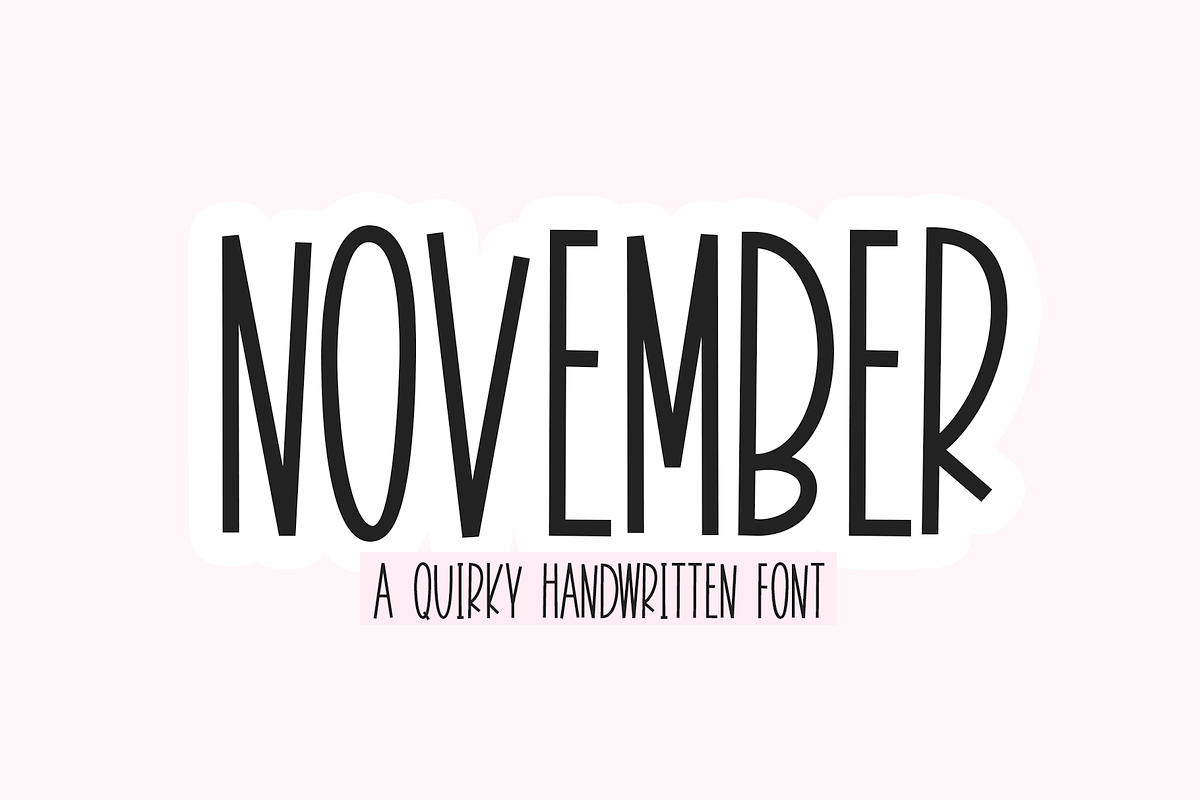
November | Fun Handwritten Font Free Download
Playful, casual, and full of warmth, November | Fun Handwritten Font Free Download is a cheerful typeface that captures the feel of hand-drawn lettering with a friendly twist. Perfect for greeting cards, kids’ projects, planners, social media graphics, and creative branding, this font brings a joyful, personal touch to your design work.
Its relaxed strokes and charming imperfections make it ideal for projects that need to feel approachable and fun—whether you're crafting seasonal designs or adding personality to everyday content.